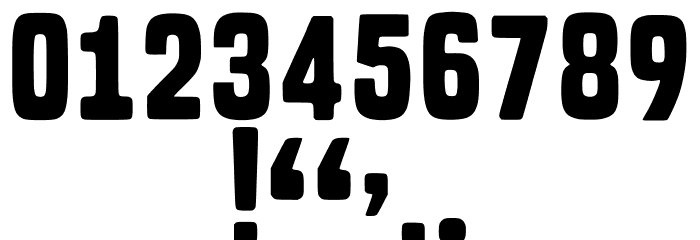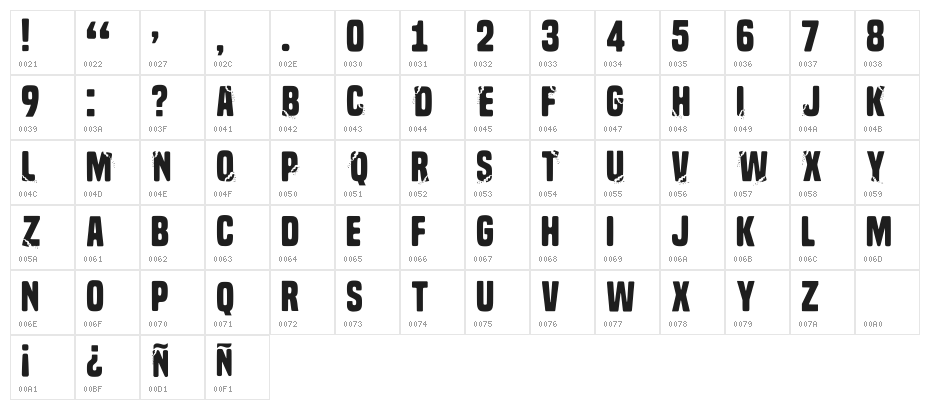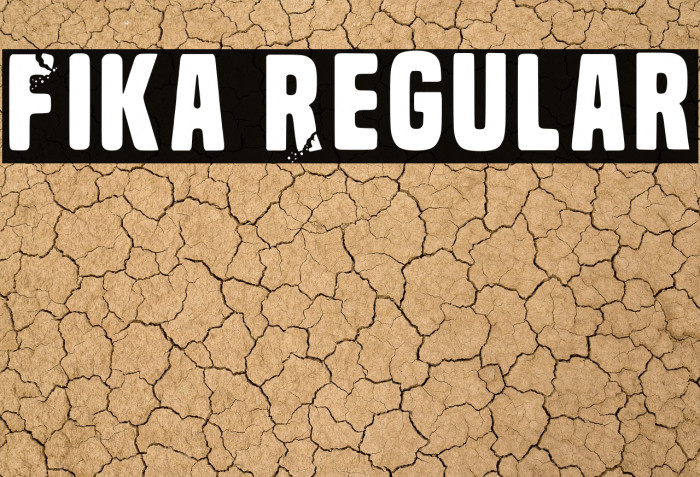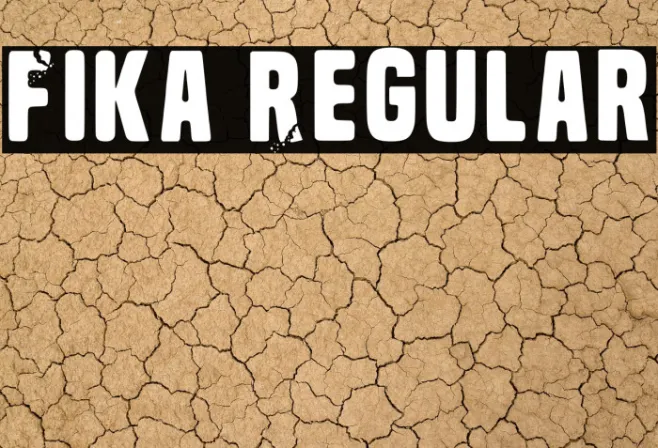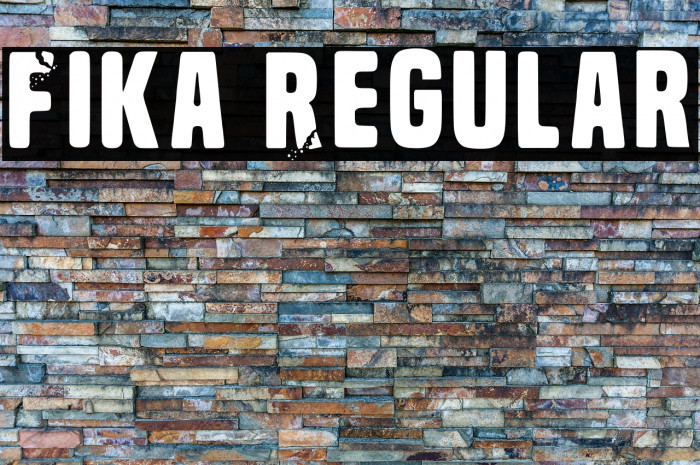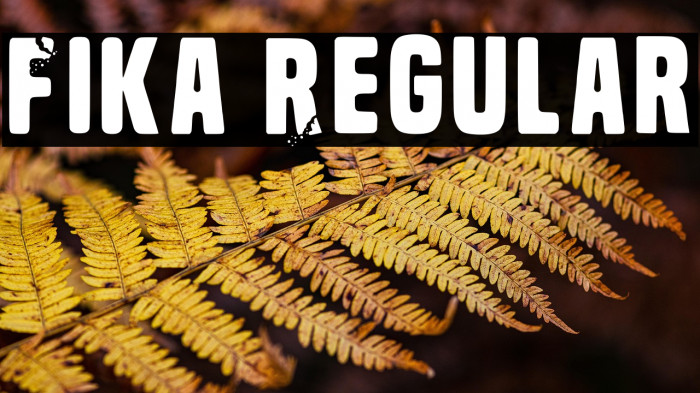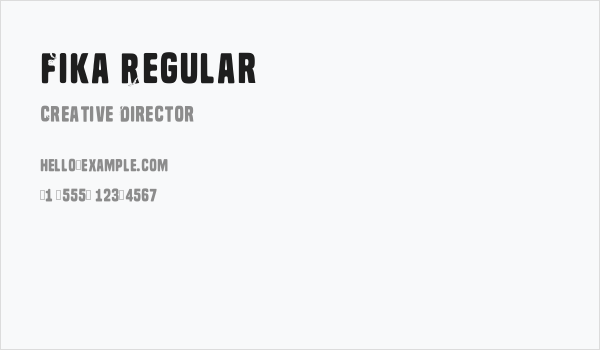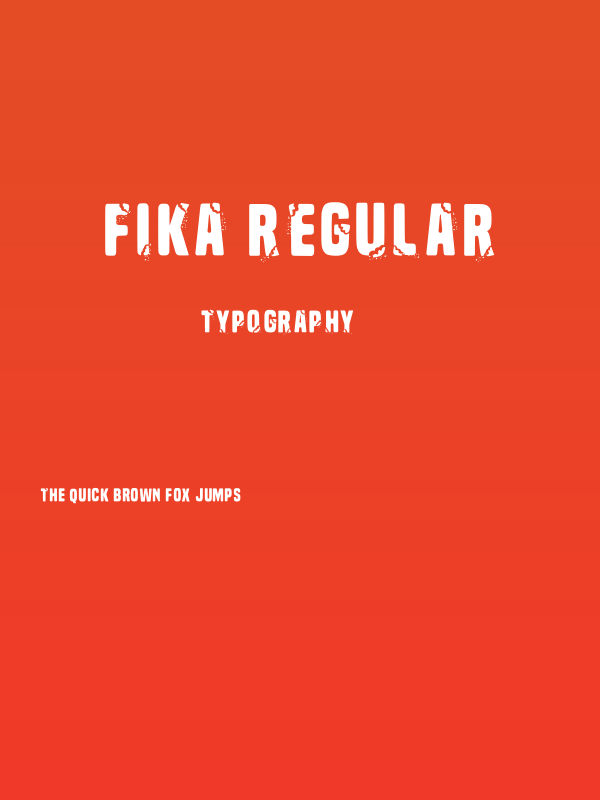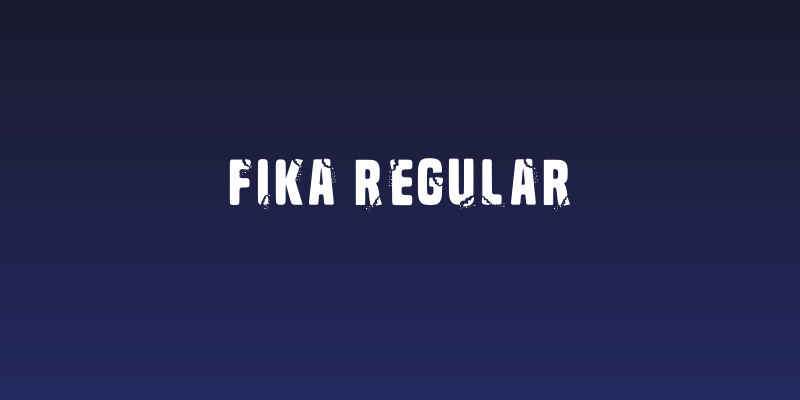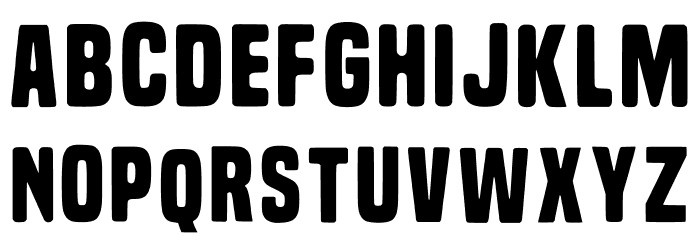
Fika Regular Font
Fika Regular Description
This bold and impactful font features a distressed, textured appearance that gives it a rugged, vintage feel. The uppercase letters are prominent and commanding, with a slightly condensed structure that enhances their boldness. The numbers and punctuation marks follow the same stylistic approach, ensuring consistency across all characters. The font's unique texture adds a layer of depth and character, making it ideal for projects that require a strong, eye-catching typeface.
| Proposed Projects | Ideal for posters, branding, packaging, and any design that requires a bold, vintage aesthetic. |